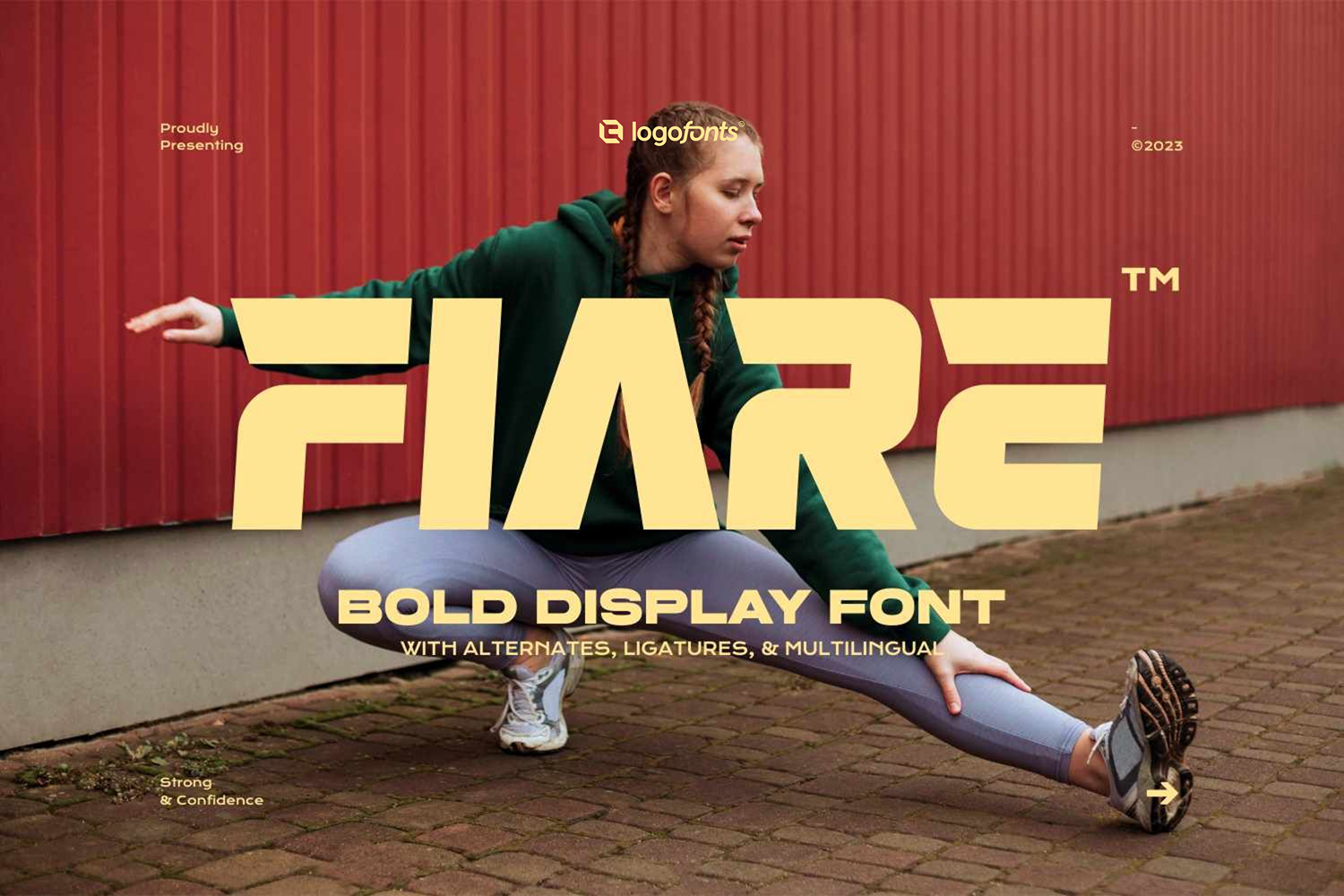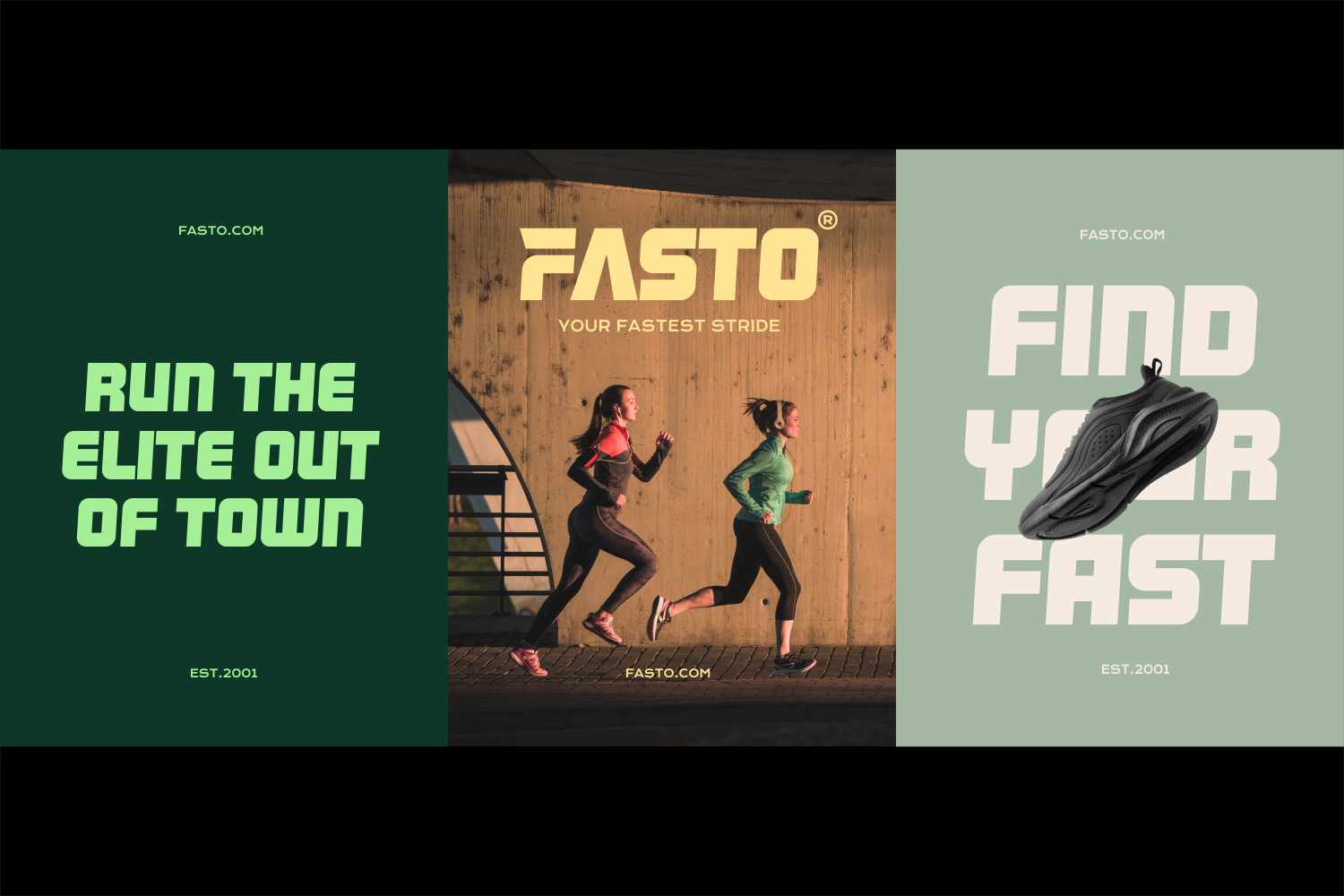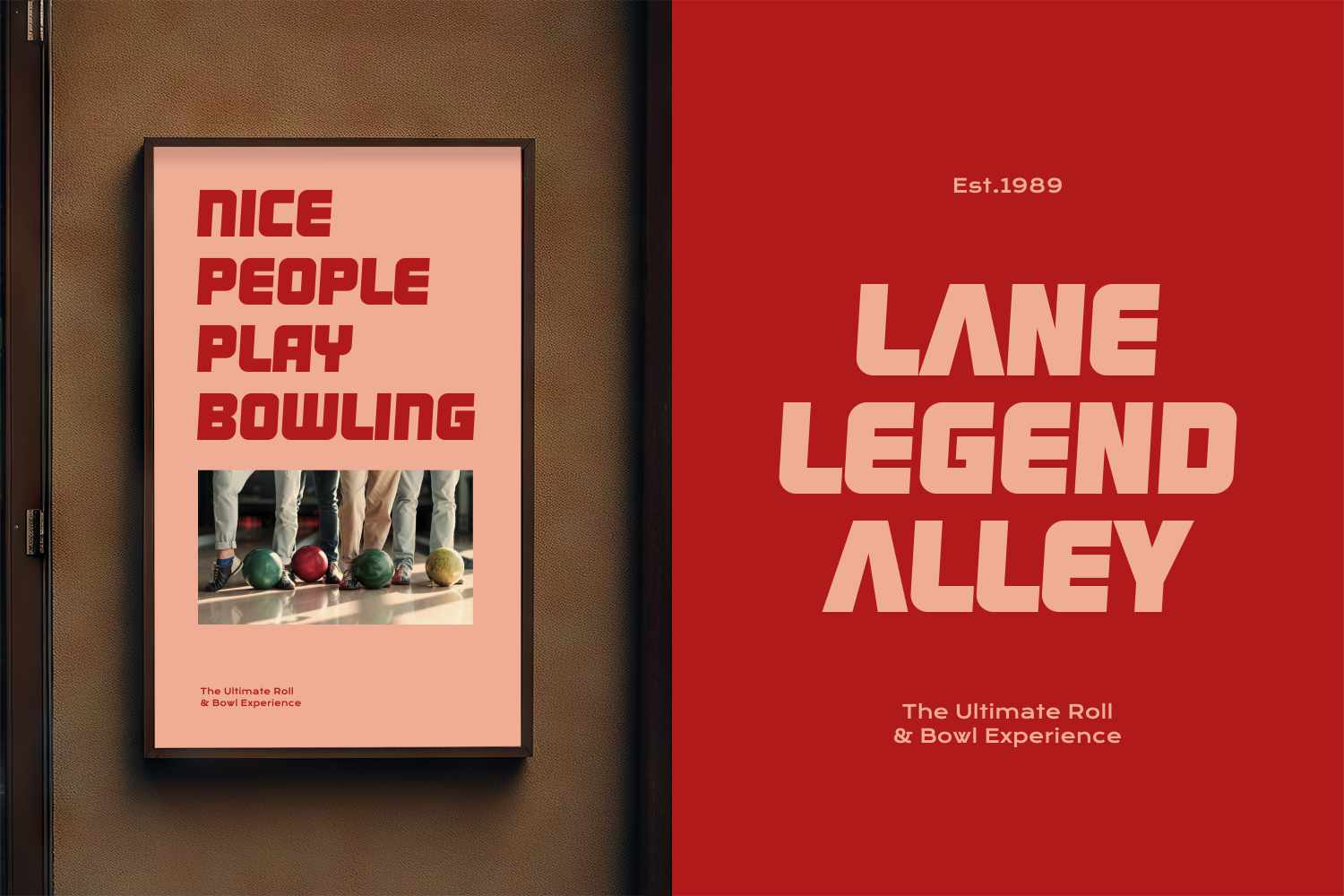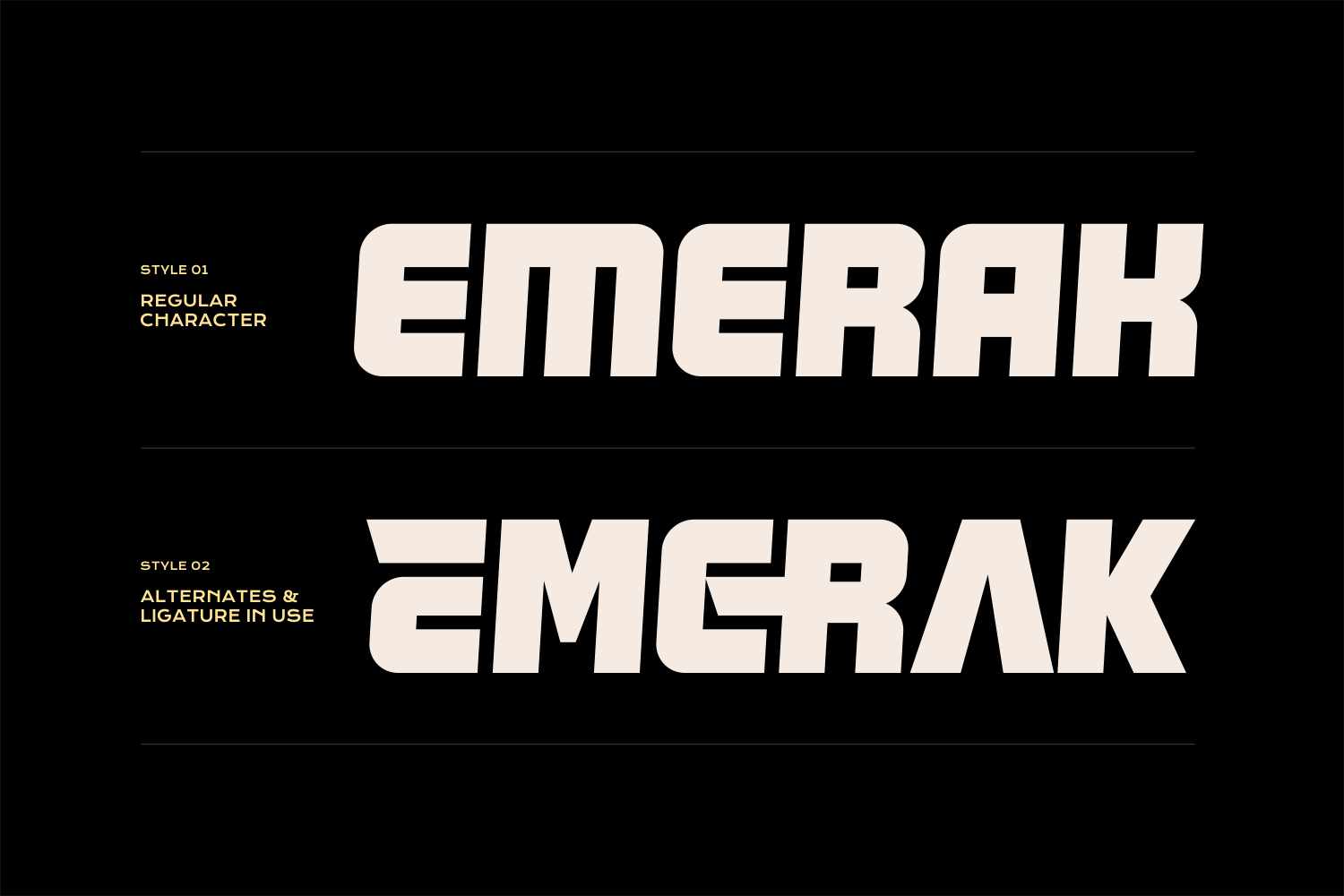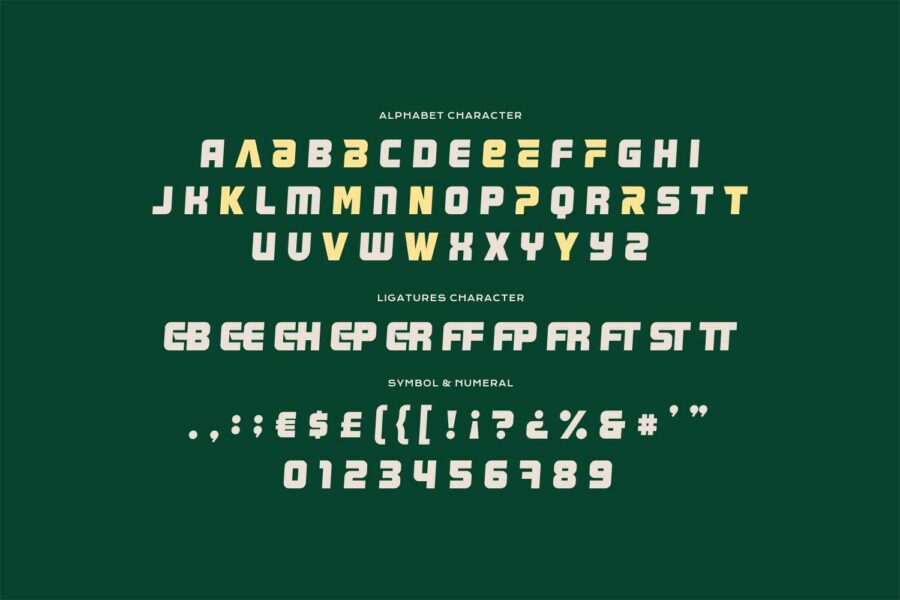
Fiare is a bold and confident display font with a powerful presence and a sporty attitude. Designed with strong geometric construction, Fiare offers alternate characters and stylish ligatures that add flair and flexibility to your designs. Its dynamic curves and sharp edges make it ideal for branding, editorial titles, sports apparel, and bold advertising layouts.
Whether you’re crafting high-impact posters, energetic product packaging, or urban-inspired brand visuals, Fiare helps you deliver a message of strength, energy, and modernity. With multilingual support and versatile features, this typeface is ready to amplify your voice across both digital and print platforms.
Fiare